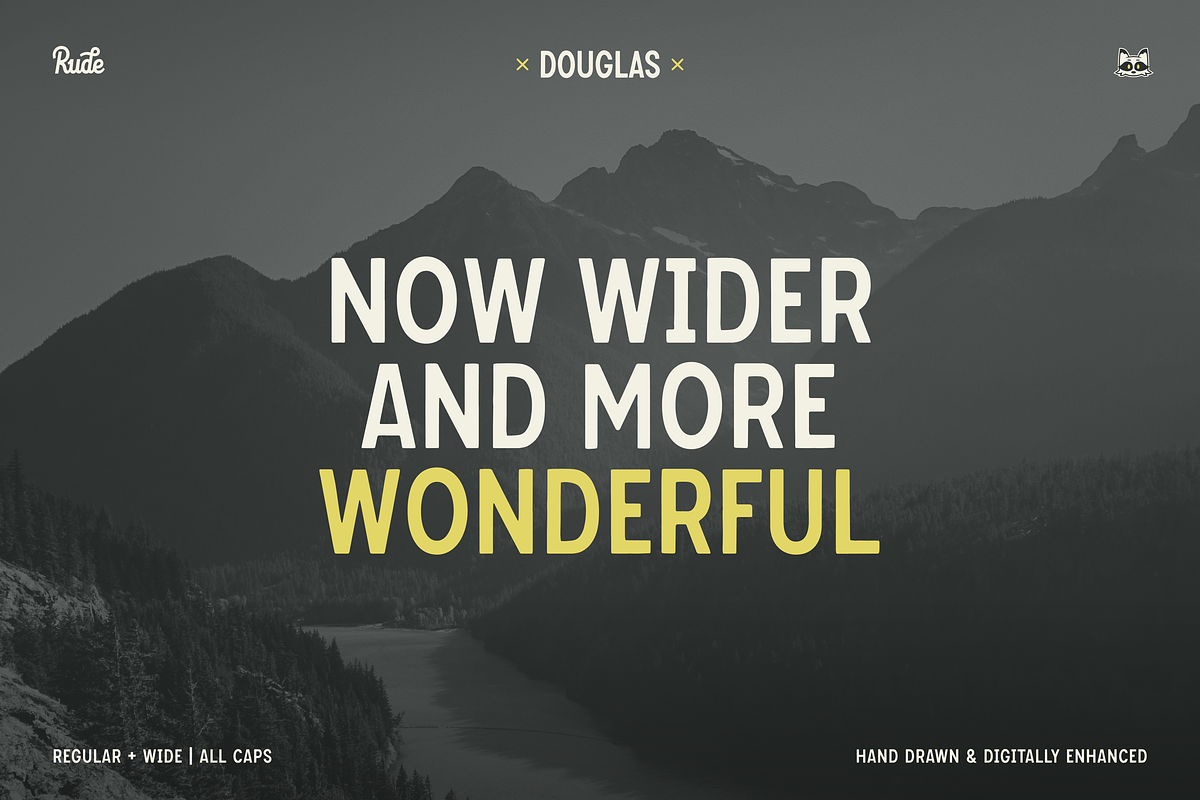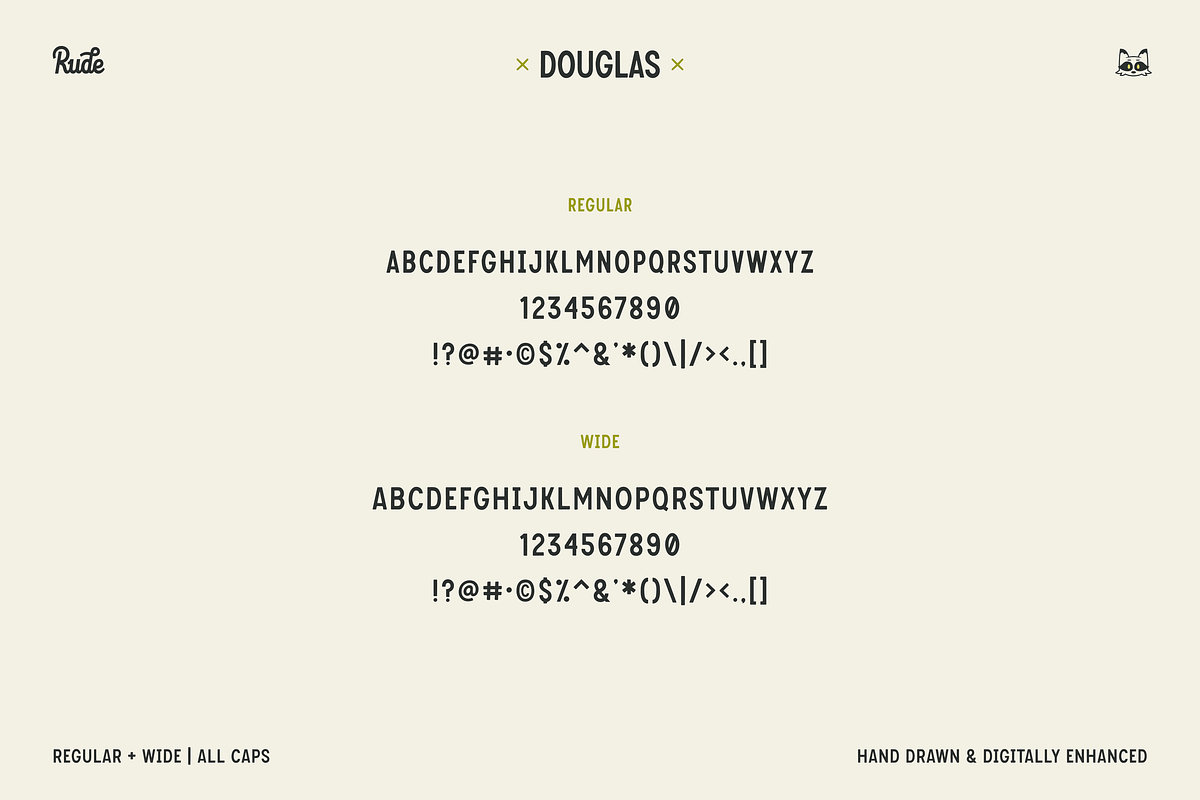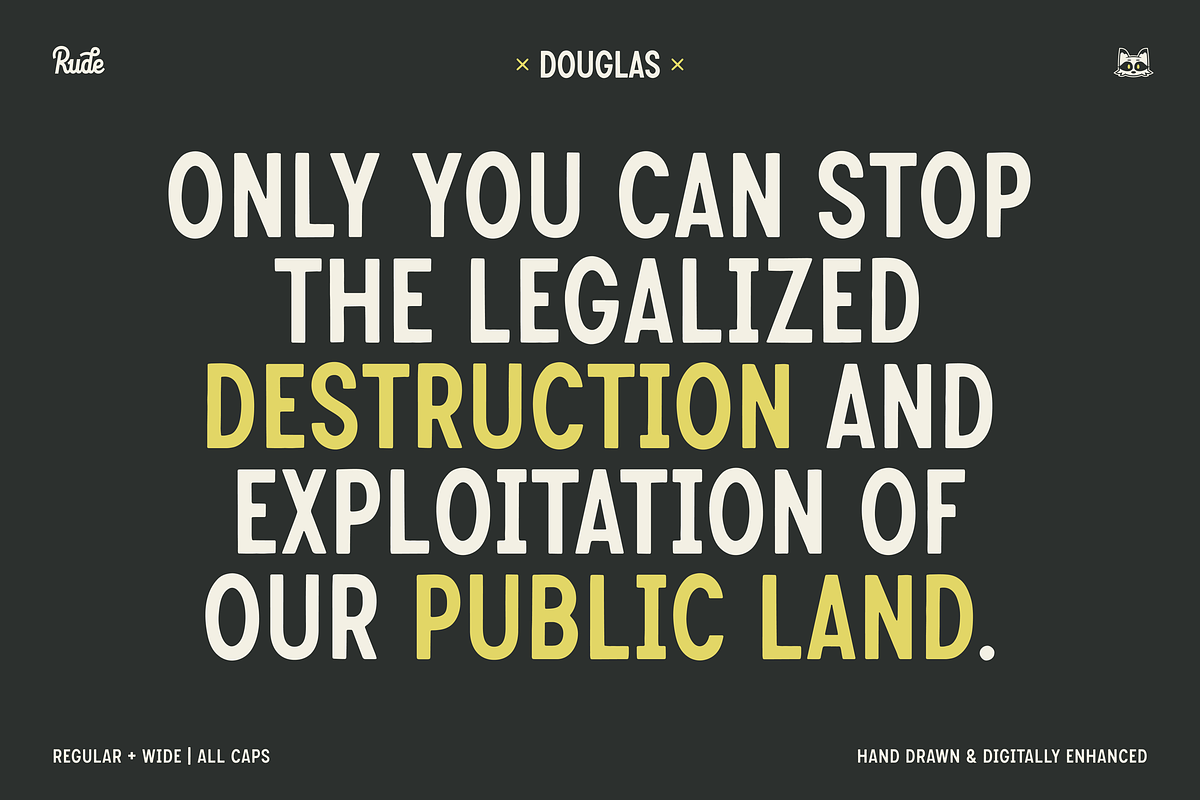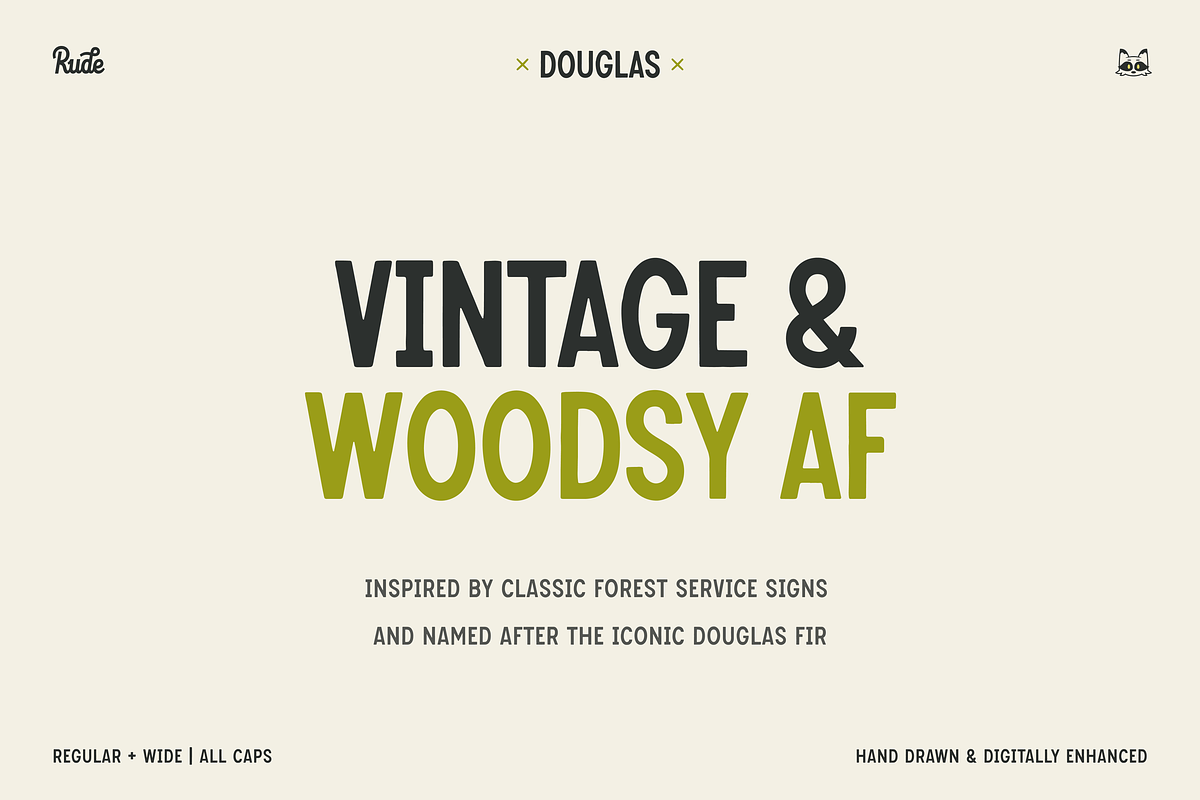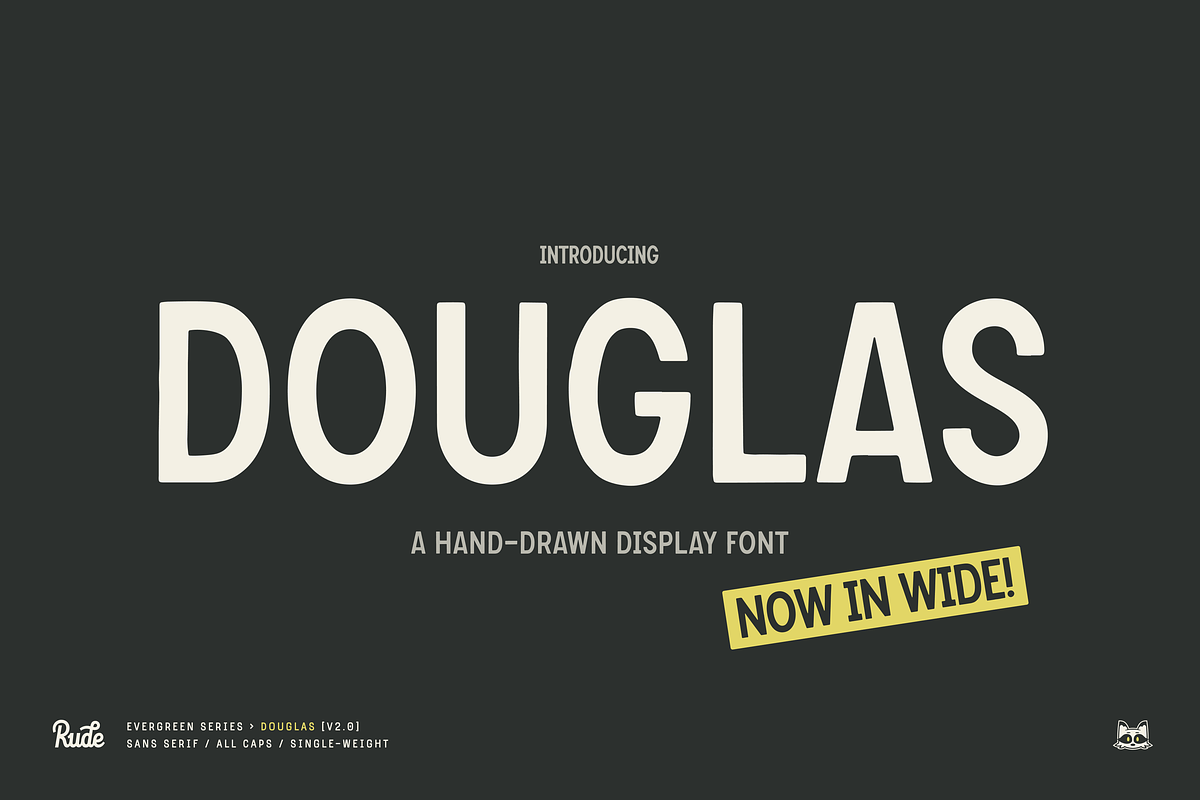
Douglas Vintage Display Font
A hand-drawn and digitally enhanced display font inspired by old carved trail markers and forest service signs around Washington State, and named after the iconic Douglas Fir.
- Regular & Wide weights
- All Caps
- Display font, ideal for large headings and captions
- Hand drawn and vectorized
Immerse yourself in this woodsy passion font!